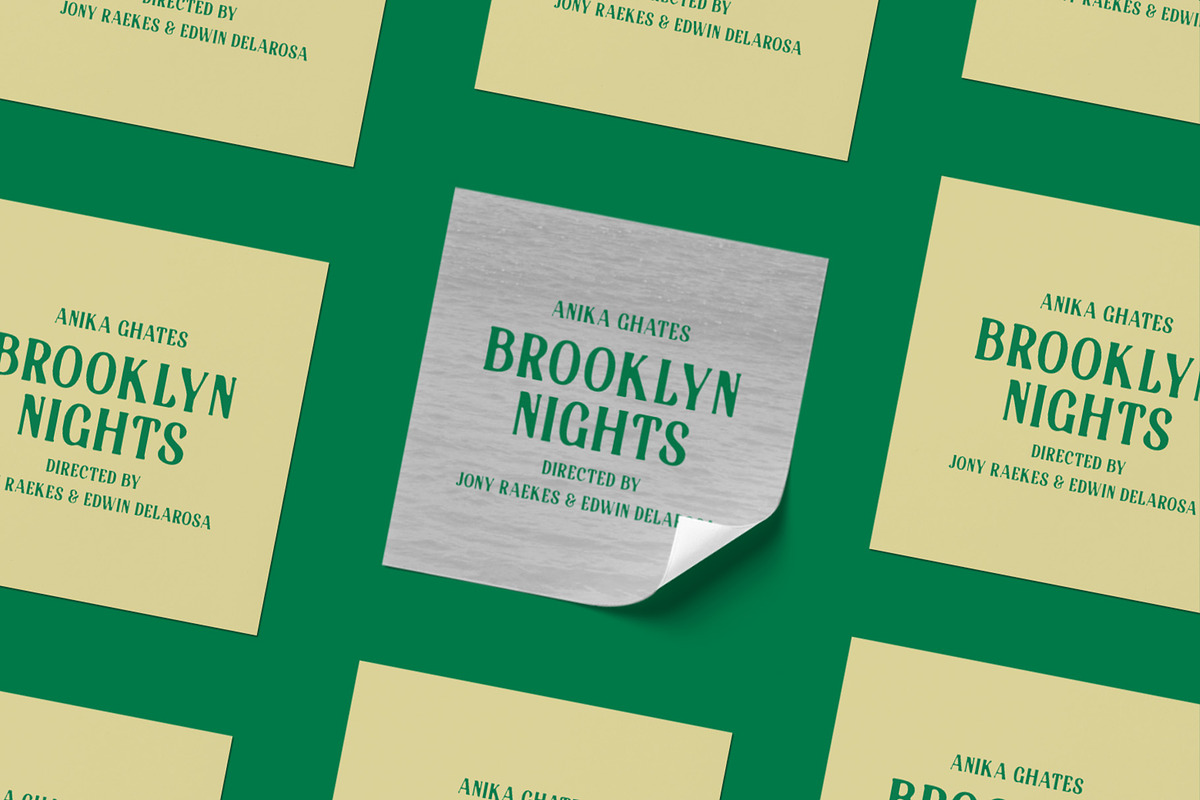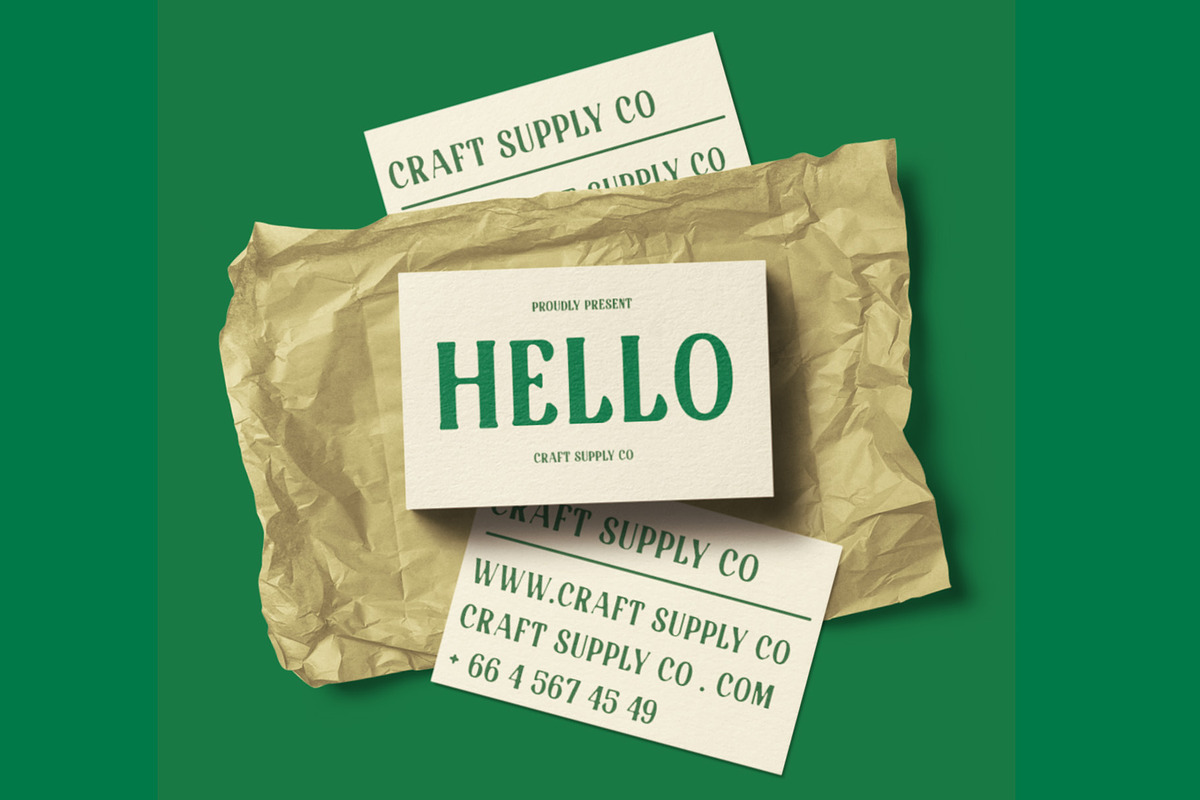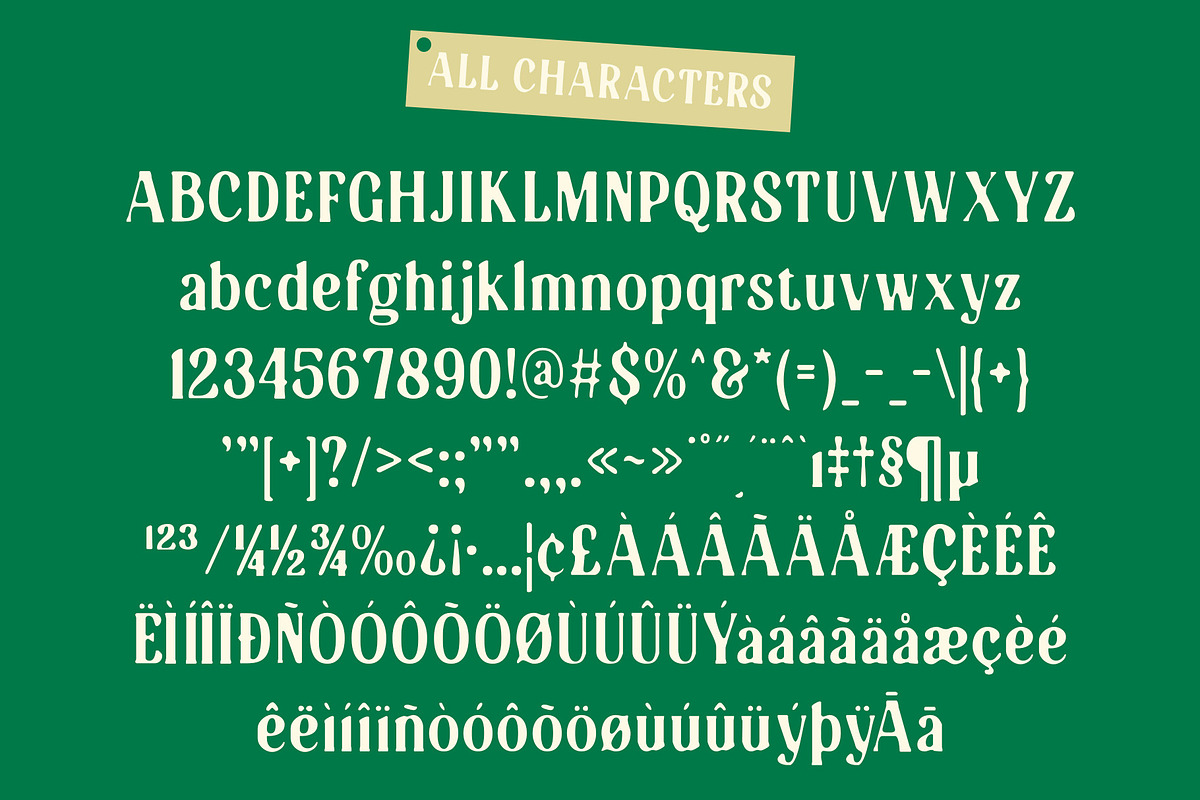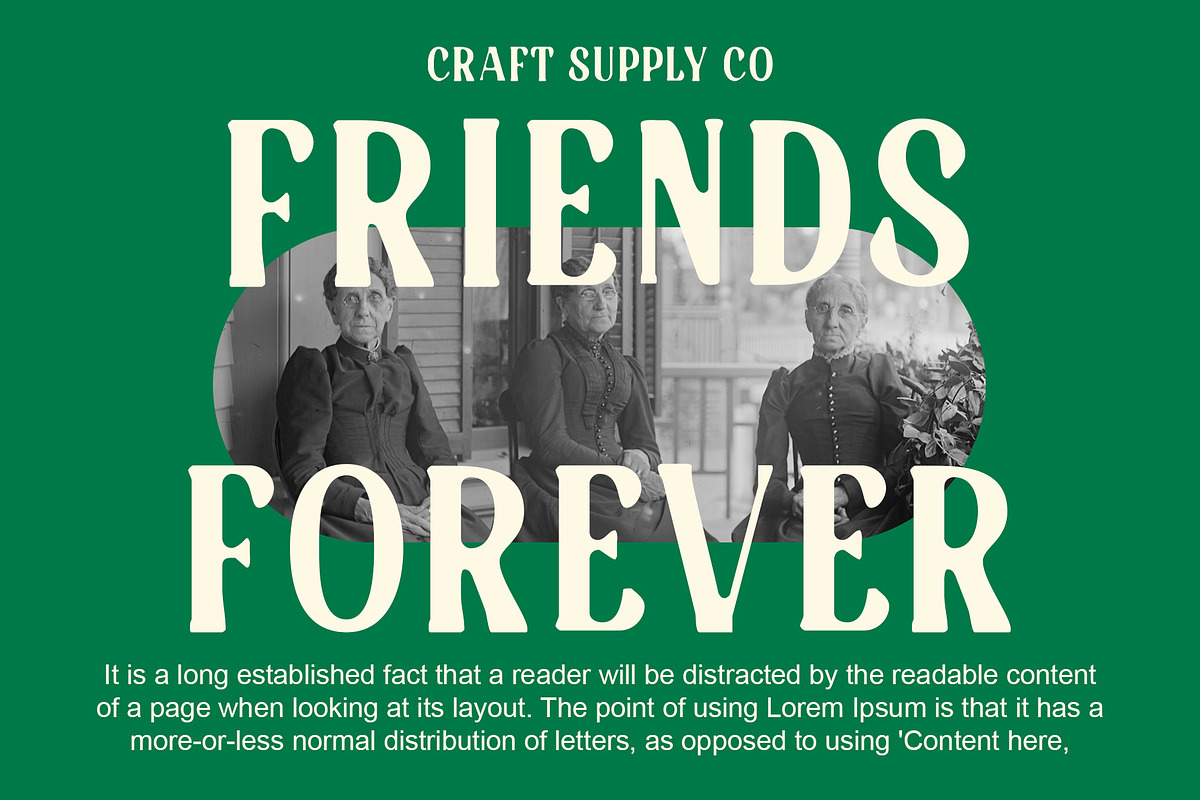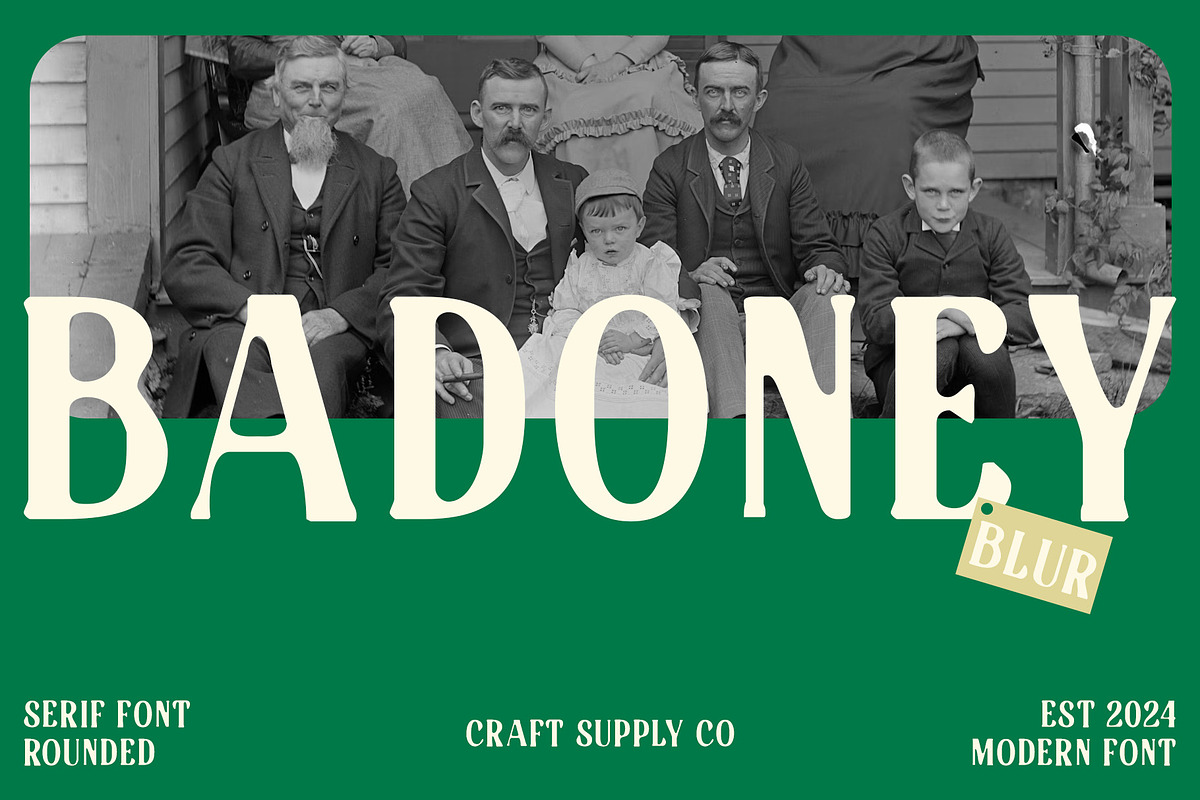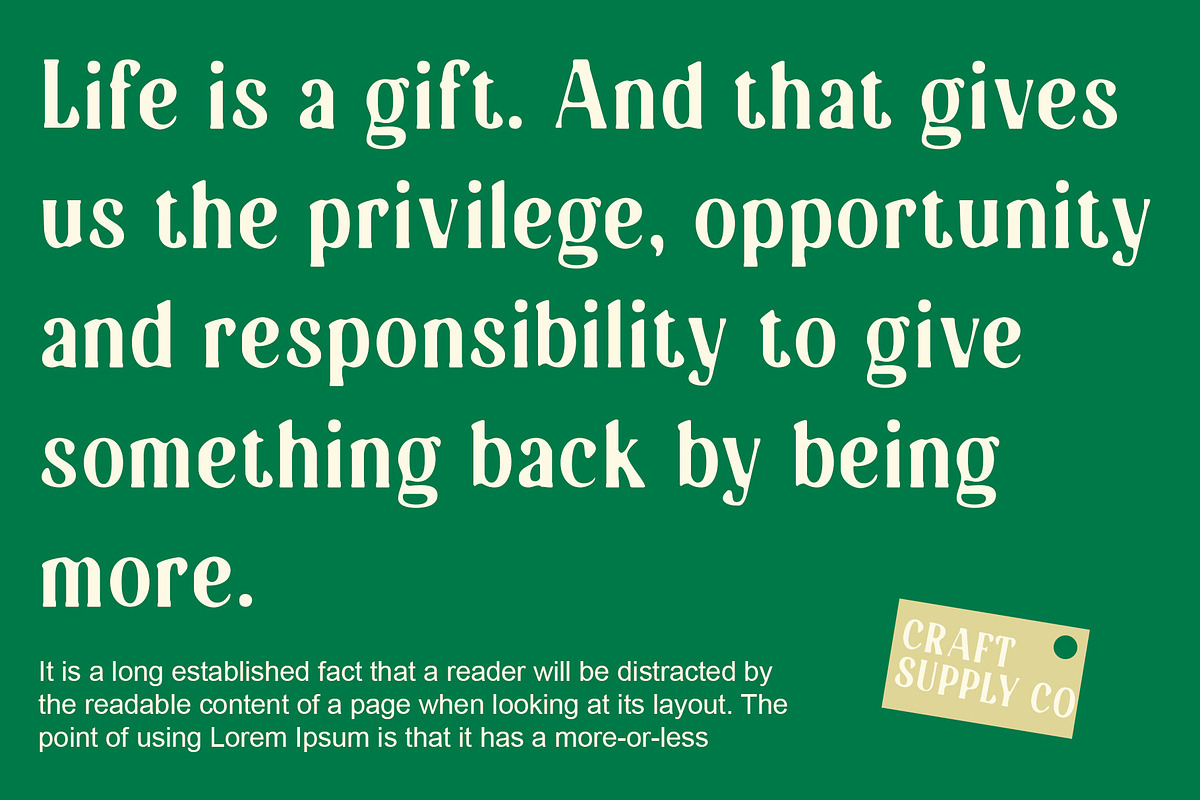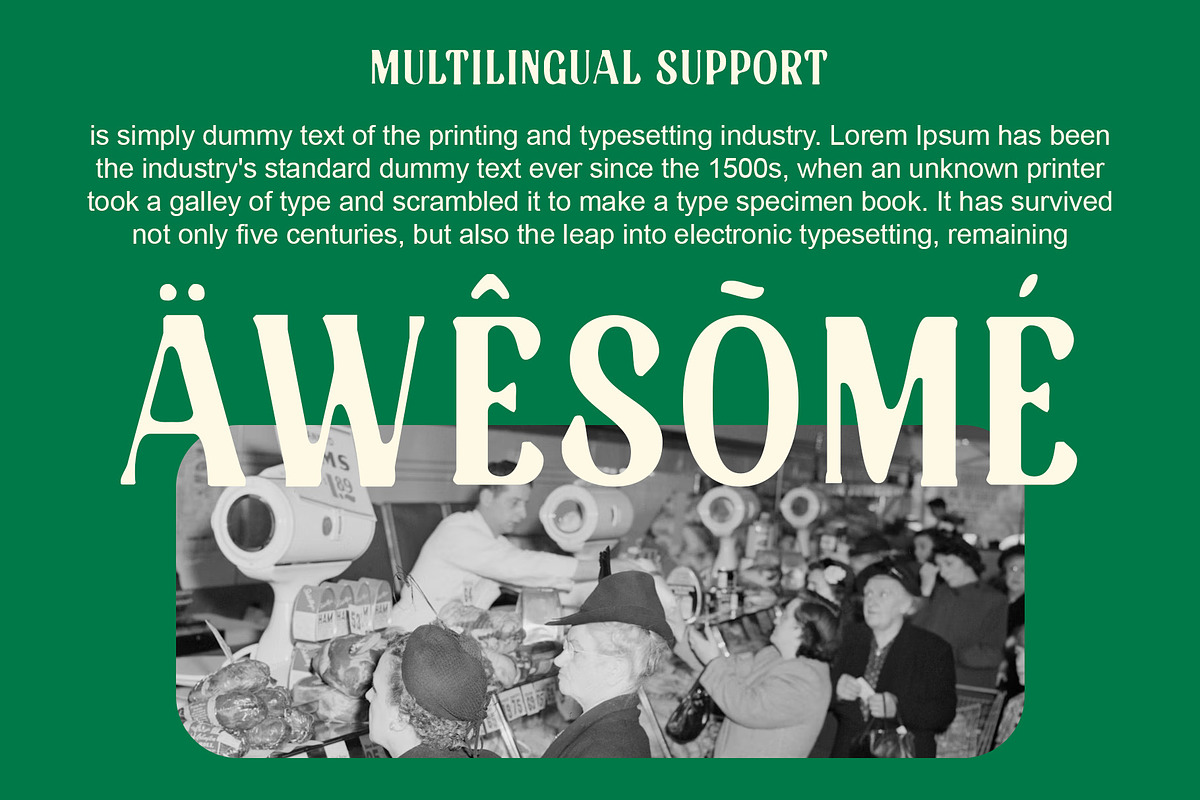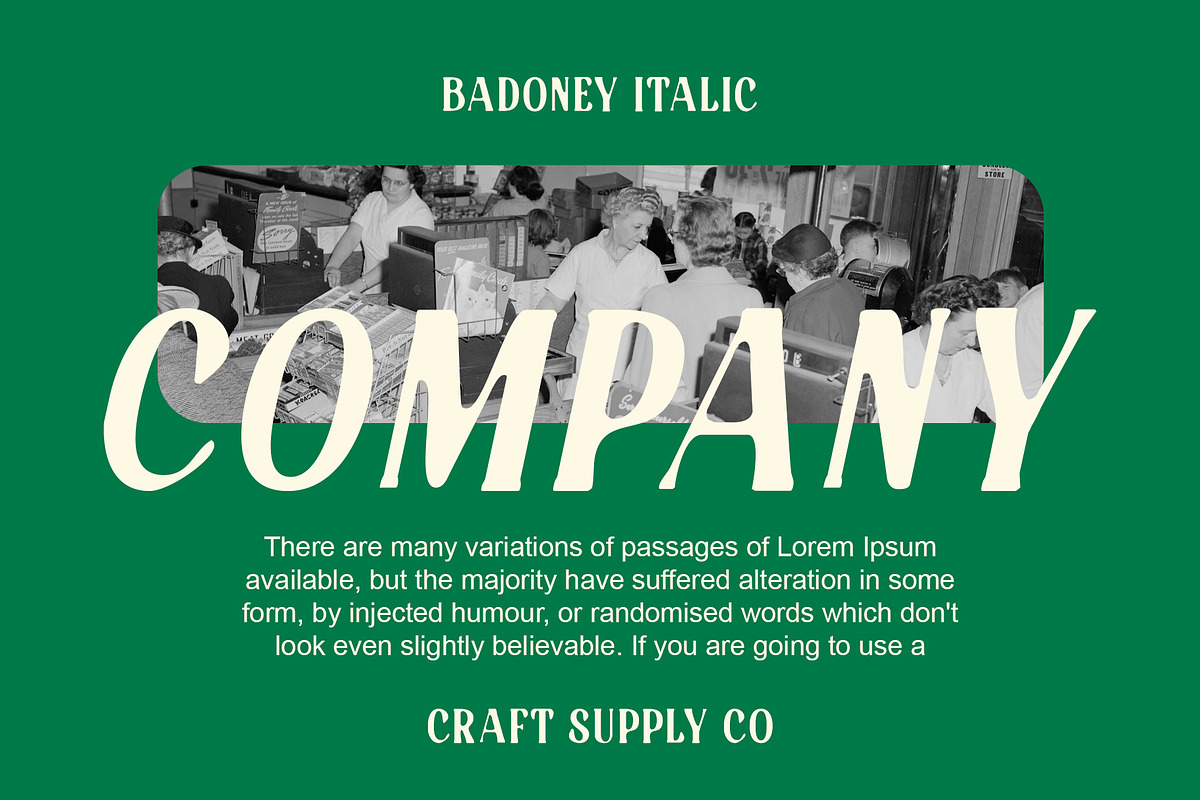
Badoney Blur
Badoney Blur: Sleek and Stylish Display Font
Condensed Serif Design Badoney Blur features a condensed serif design that exudes sophistication and style. Its sleek letterforms are meticulously crafted to make a bold statement.
Blur Effect The font is enhanced with a subtle blur effect, adding a touch of depth and dimensionality. This effect gives Badoney Blur a modern and dynamic appearance, perfect for grabbing attention in displays.
Ideal for Display Use With its condensed serif design and blur effect, This font is ideal for display purposes. Whether used in headlines, banners, or signage, it commands attention and conveys a sense of elegance.
Versatile Application Despite its bold appearance, This font is versatile in its application. From branding and packaging to posters and social media graphics, it adds a touch of sophistication to any design project.
Sophisticated Elegance with a Modern Twist This font combines the sleekness of a condensed serif design with a subtle blur effect, resulting in a font that is both stylish and attention-grabbing. Its versatility makes it suitable for a wide range of design applications, making it a valuable addition to any designer’s toolkit.